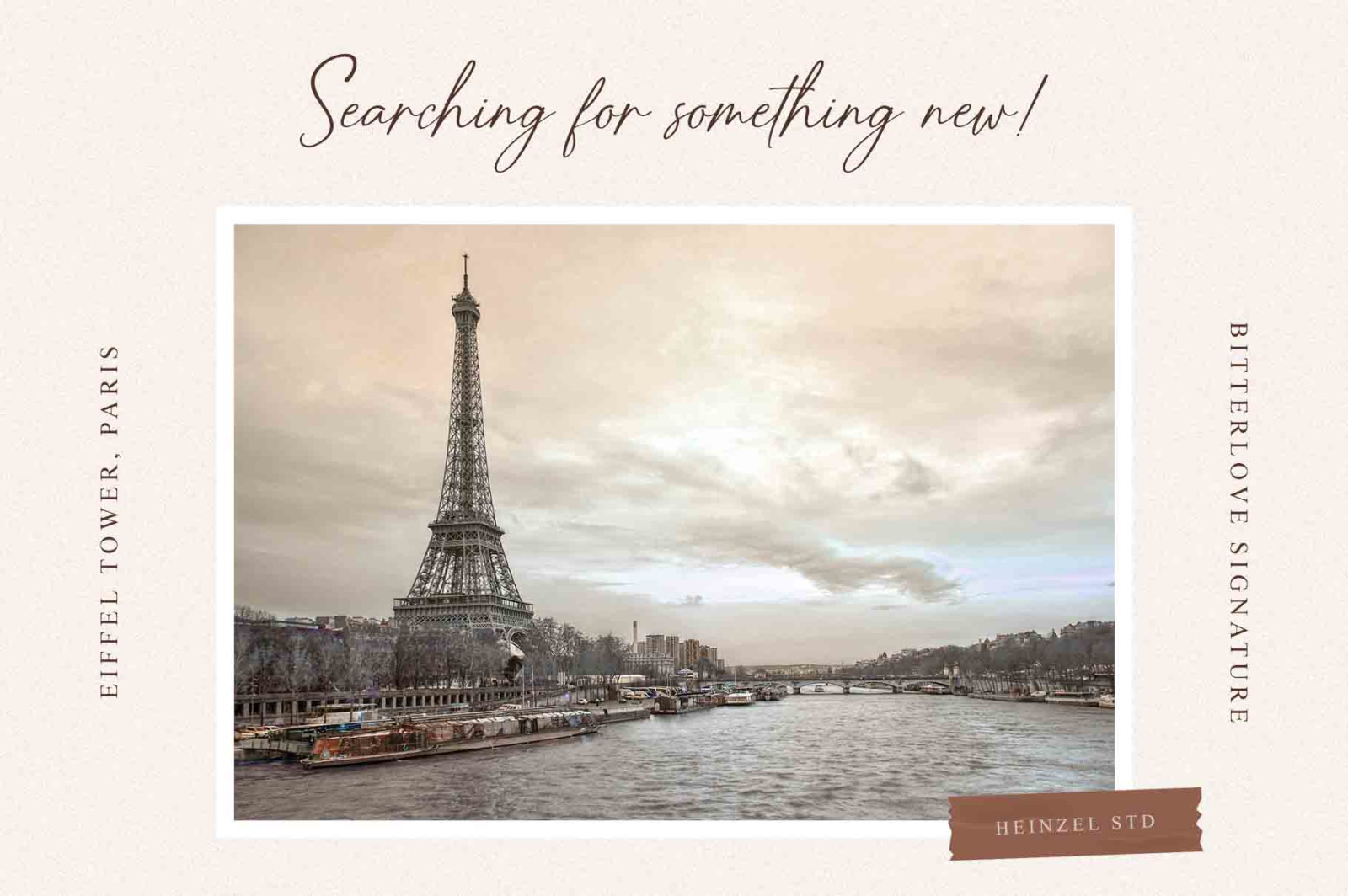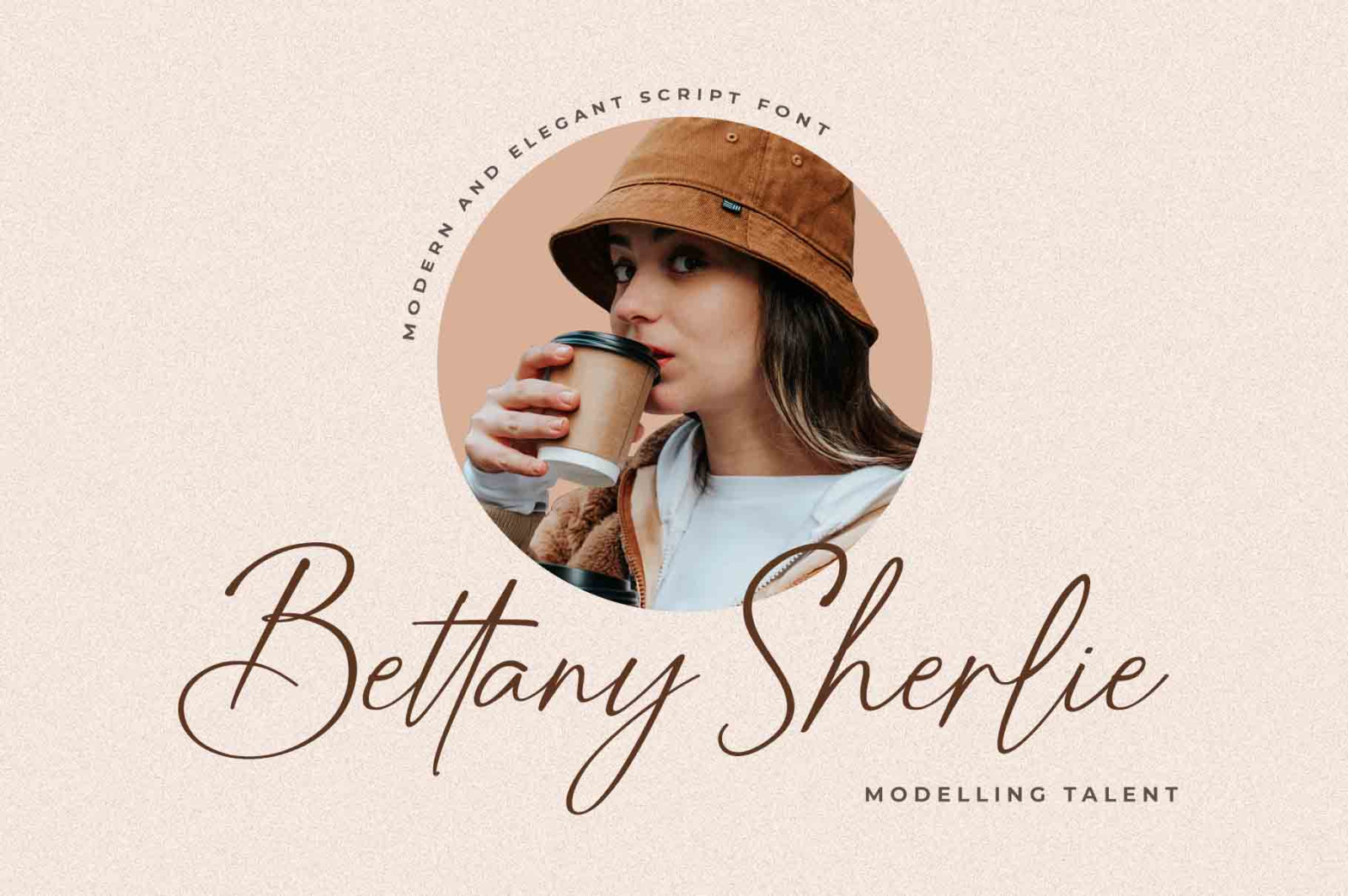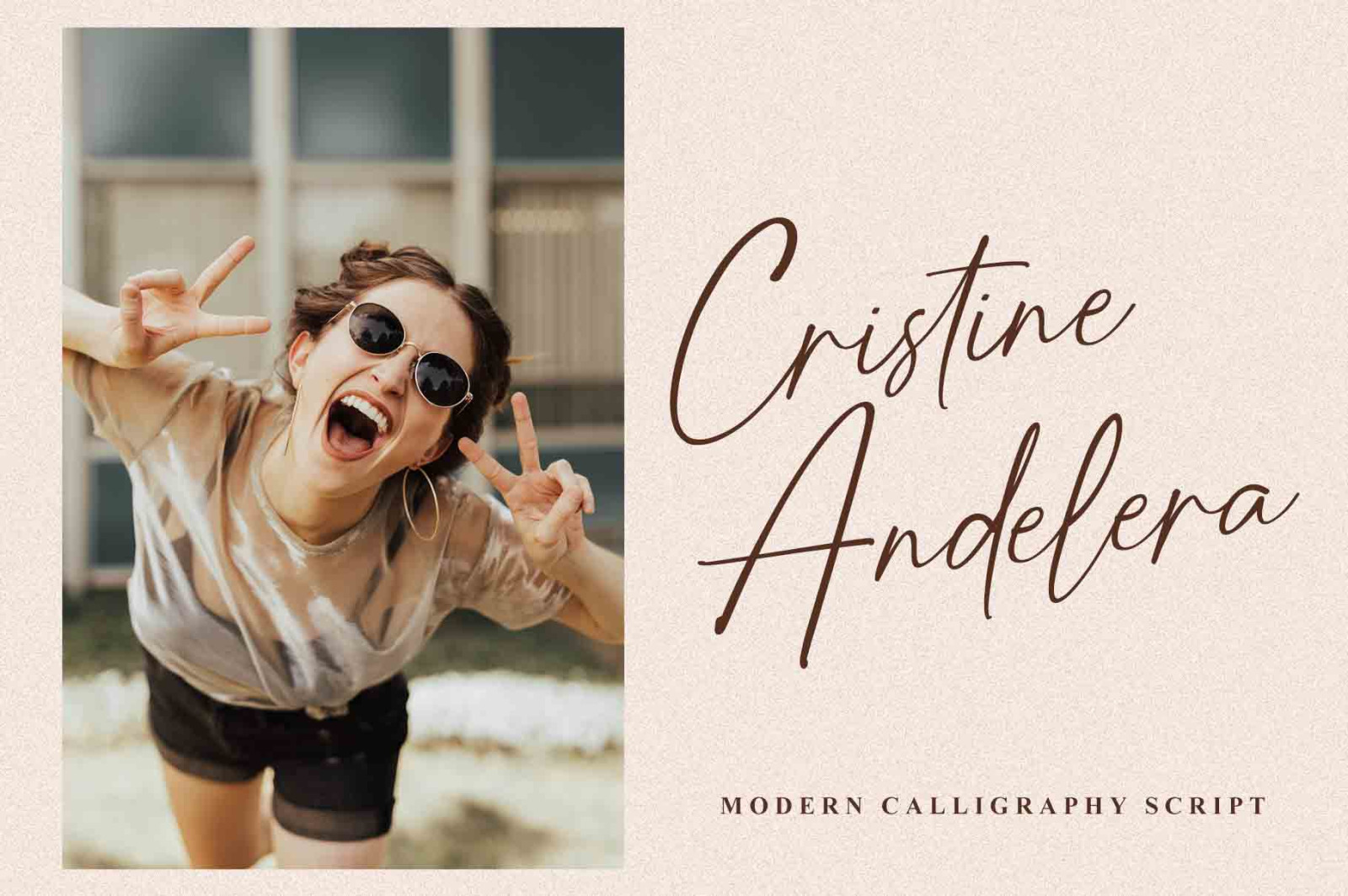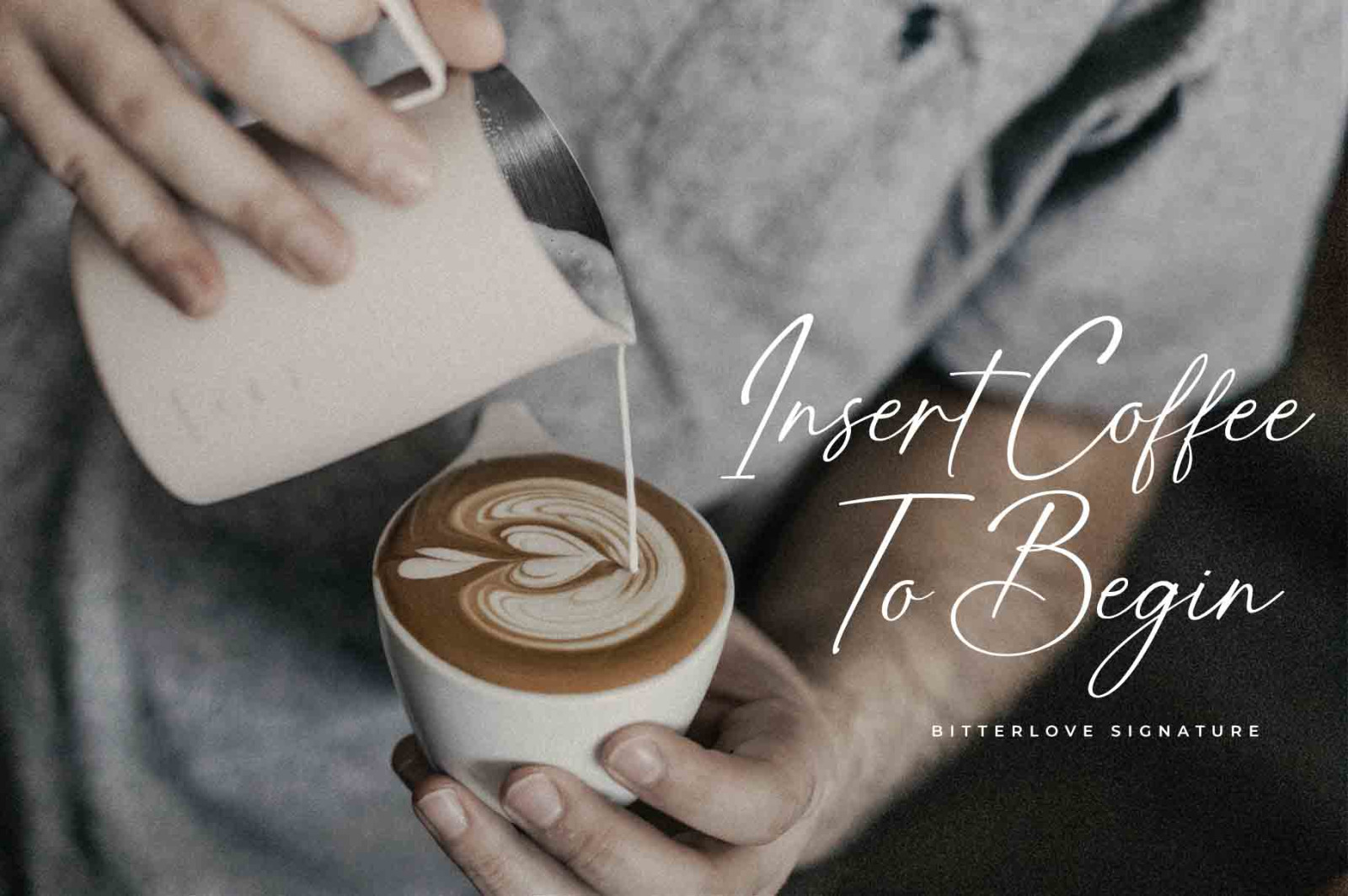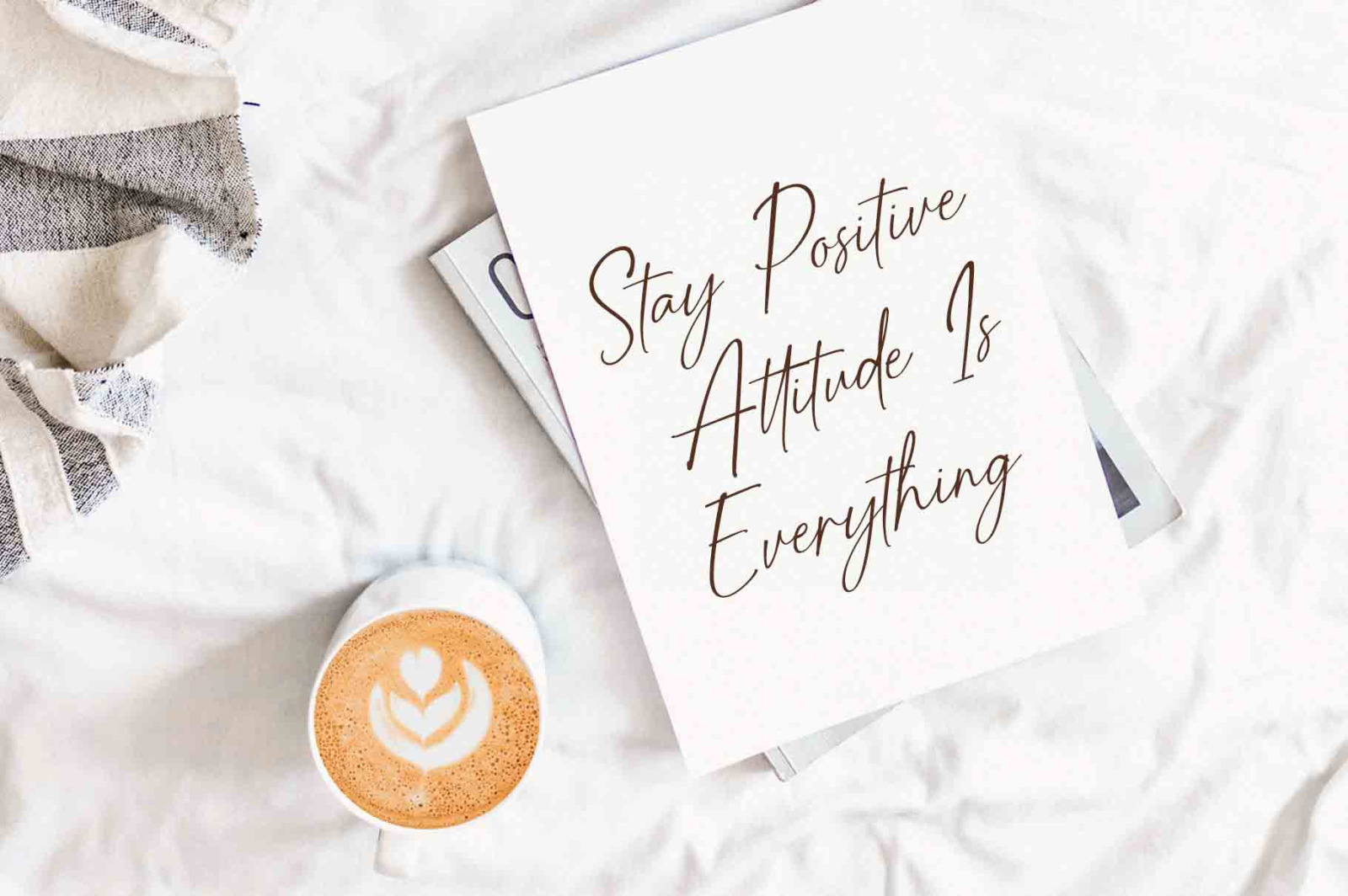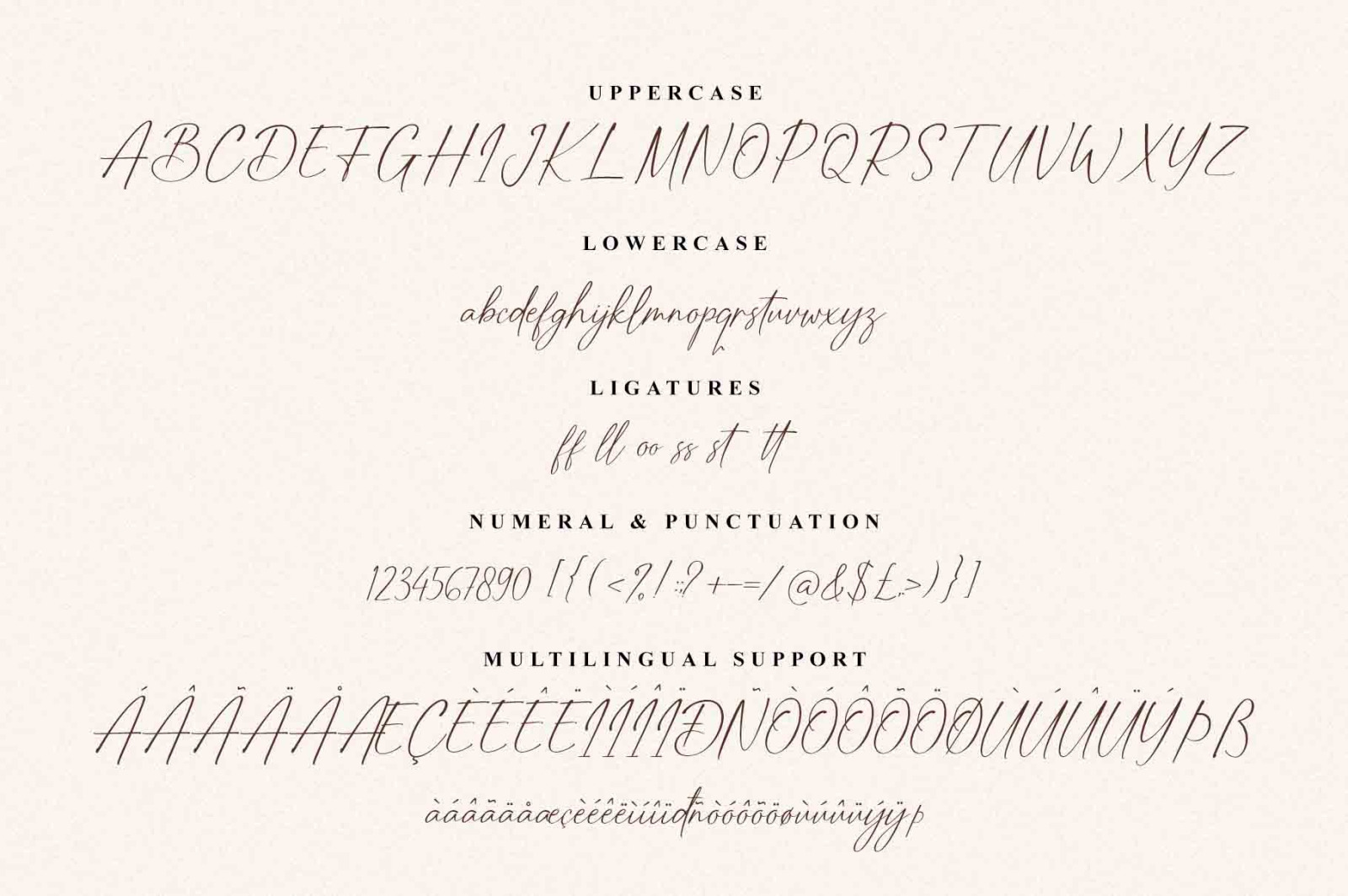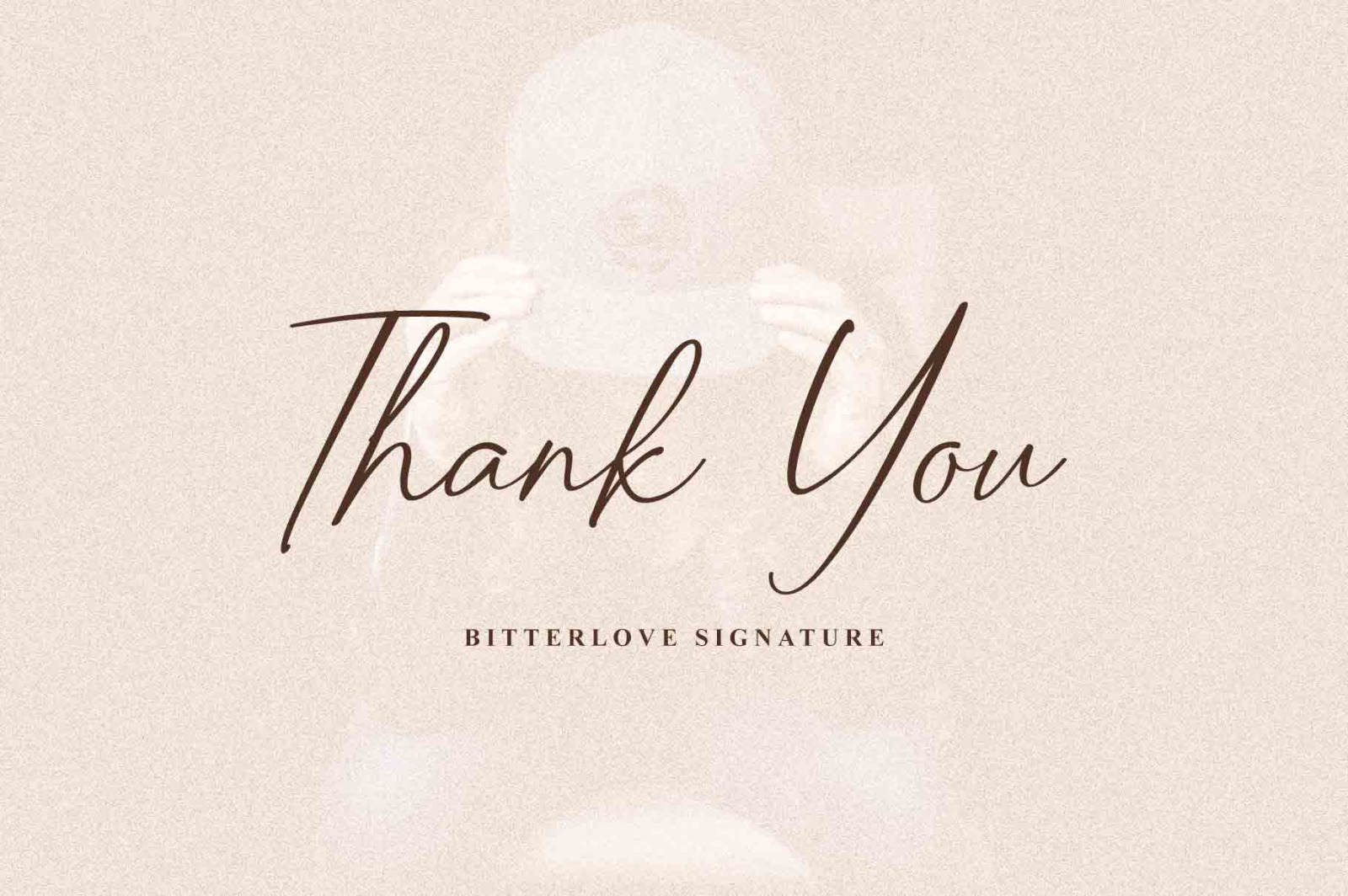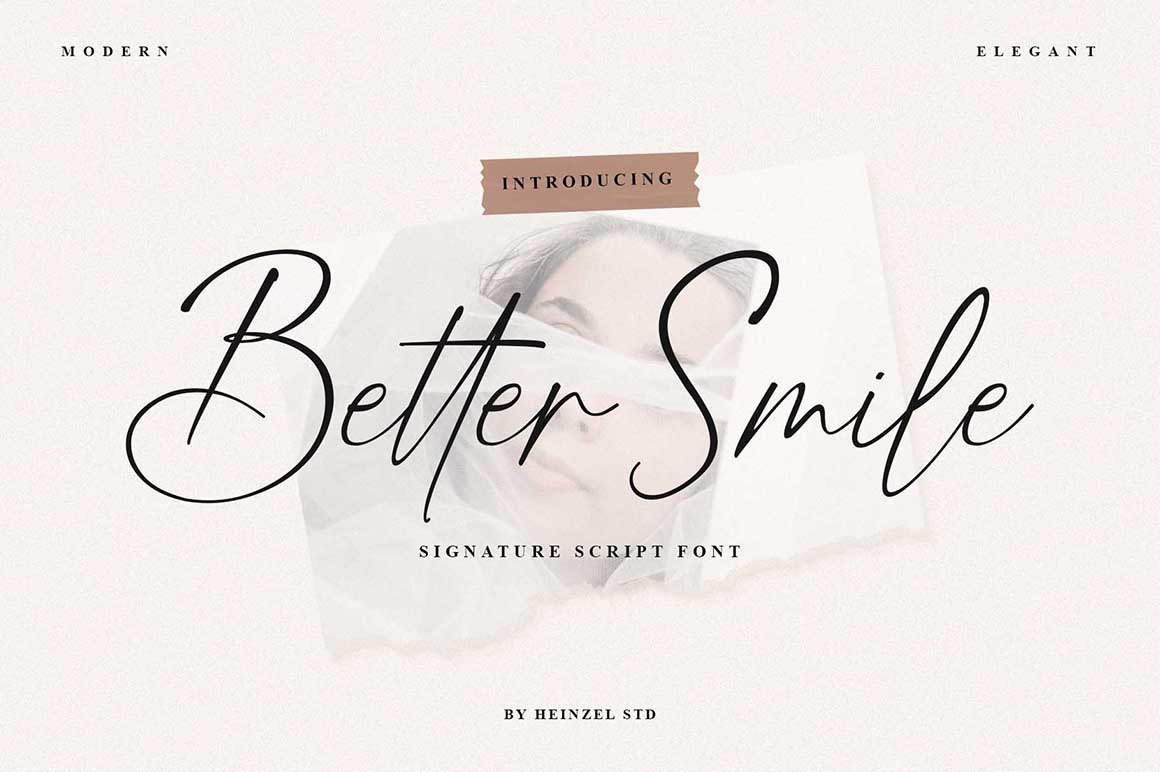
Better Smile Signature Font
Better Smile is a flowing handwritten font, described by an elegant touch, perfect for your favorite projects. Fall in love with its incredibly distinct and timeless style and use it to create spectacular designs!